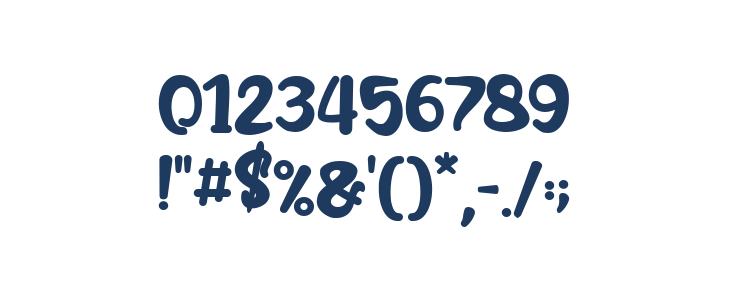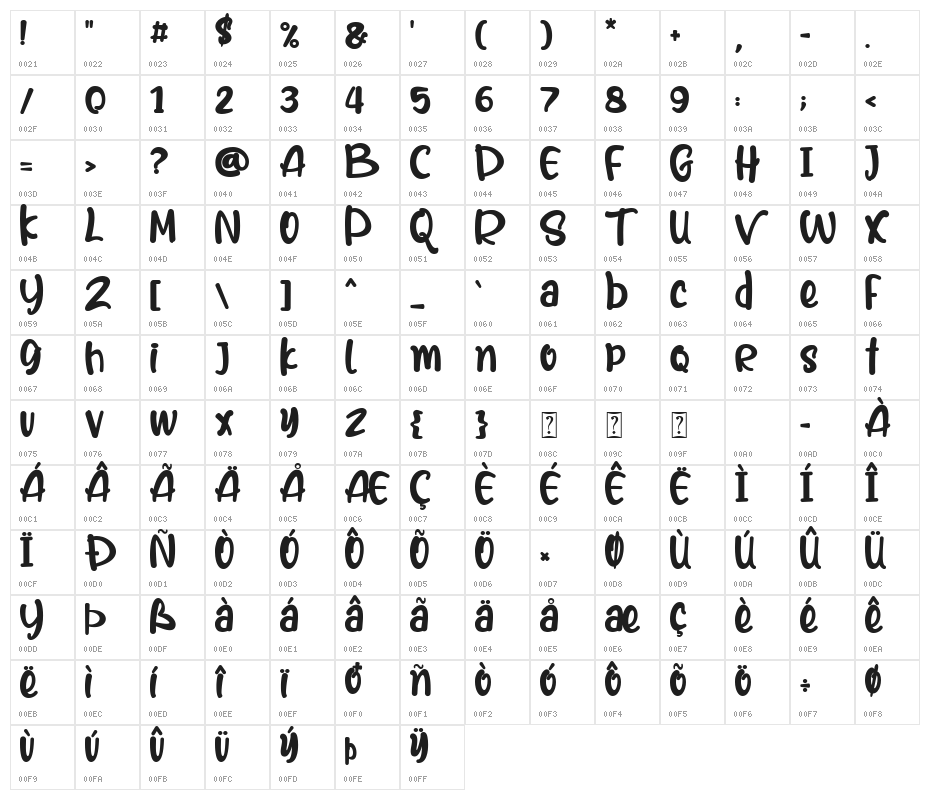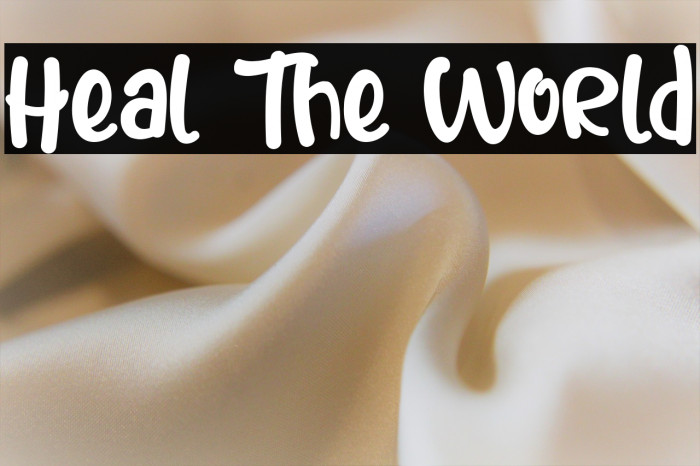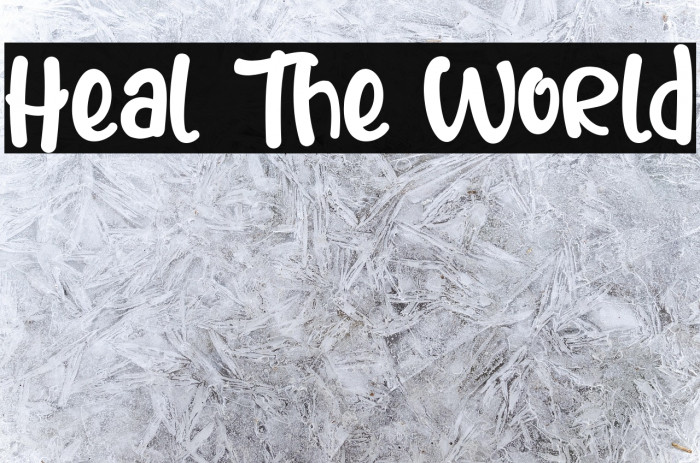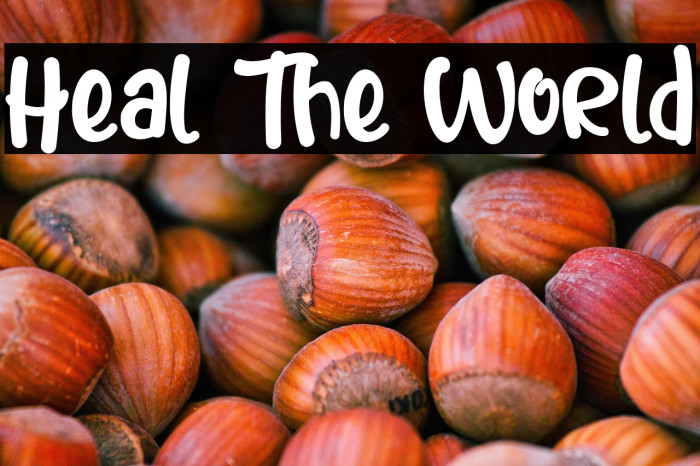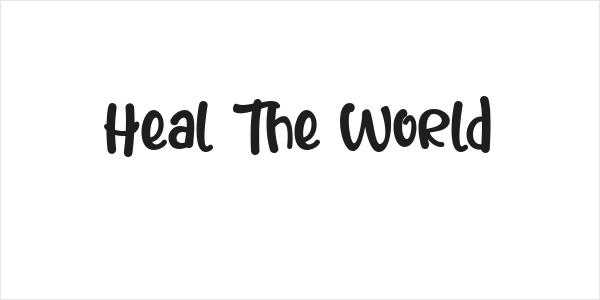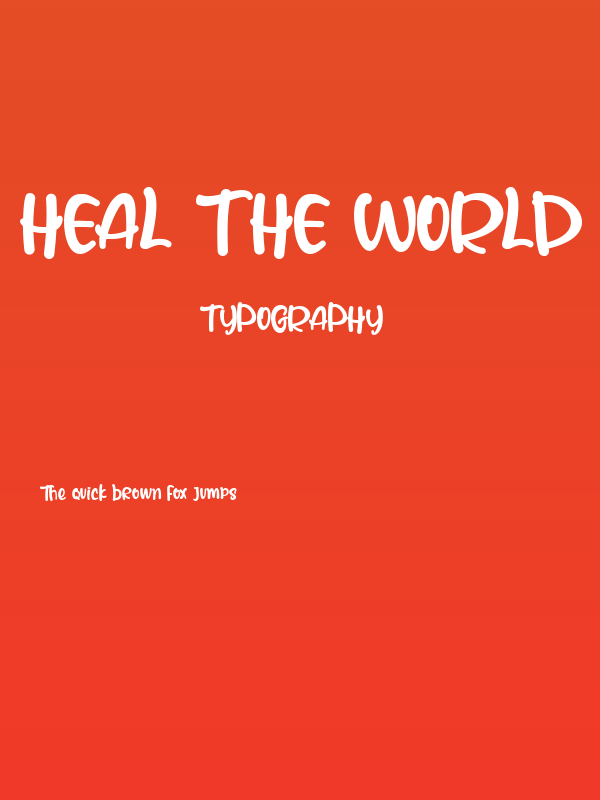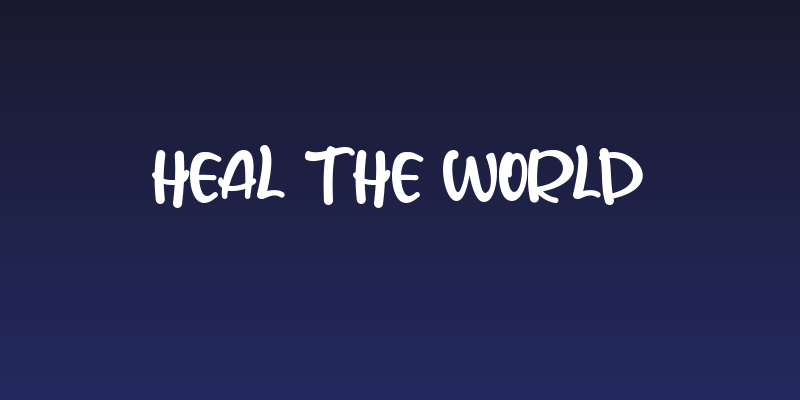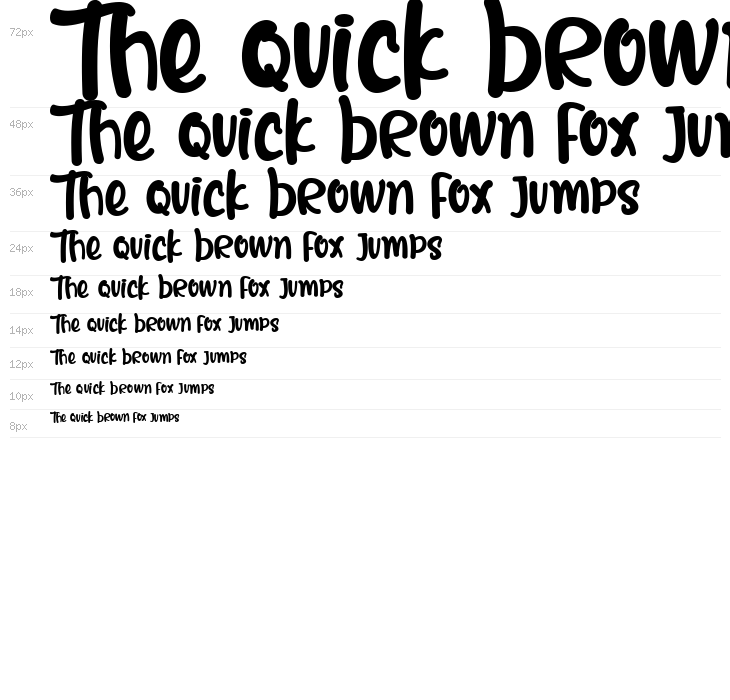
Heal The World Font
Heal The World Description
This font features a playful and bold handwritten style, characterized by its thick strokes and rounded edges. The letters are slightly irregular, giving it a casual and friendly appearance. It maintains a consistent weight throughout, with a slight slant that adds to its dynamic feel. The numerals and special characters follow the same style, ensuring uniformity across all glyphs. This font's unique personality makes it stand out, perfect for projects that require a touch of whimsy and approachability.
| Proposed Projects | Ideal for children's books, playful branding, greeting cards, and social media graphics. |